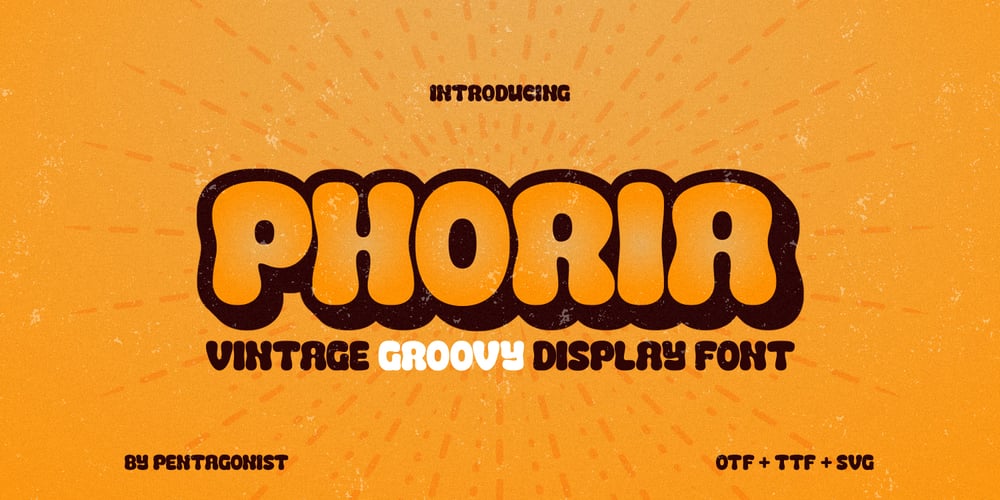
Phoria PS
Phoria PS font
Phoria PS Font Family was designed by Burhan Adiatma and published by pentagonistudio. Phoria PS contains 1 styles and family package options. Phoria Is A Vintage Display Character Inspired By Stylish and Groovy Style.SOFTWARE REQUIREMENTS :Fonts and alternate: No special software is required they may be used in any basic program /website app that allows standard fonts That’s it, folks! You can go ahead and get cracking :)Follow My Shop For Upcoming Updates Including Additional Glyphs And Language Support. And Please Message Me If You Want Your Language Included or If There Are Any Features or Glyph Requests, Feel Free to Send me A Message.Have a Good Day!